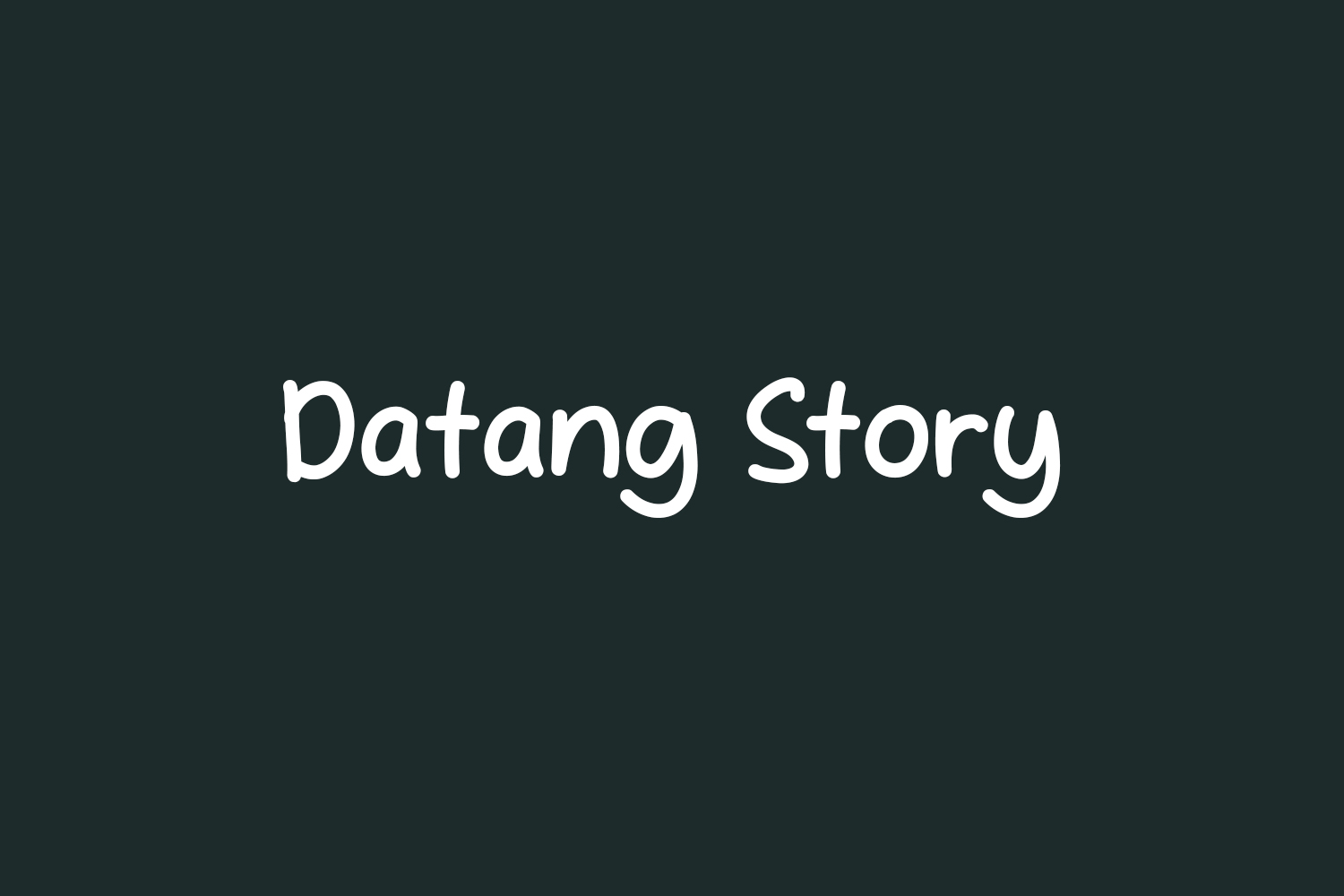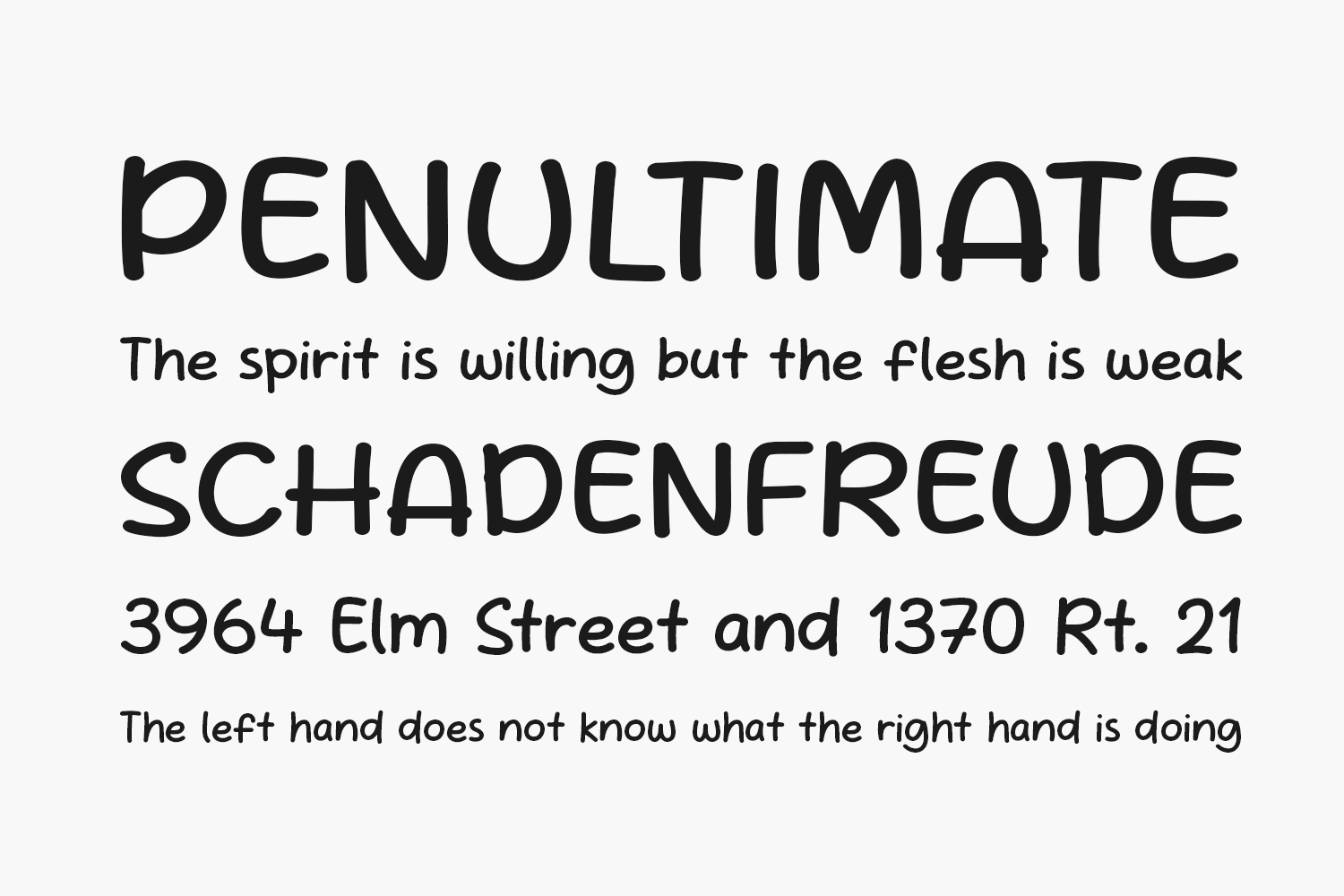
Datang Story – Free Hand‑Drawn Script Font with Playful Elegance
Datang Story is a charming, contemporary handwritten font designed by Khurasan. Its smooth strokes and casual yet refined character make it perfect for a wide range of creative applications—posters, book covers, banners, logos, magazines, and more. Free for both personal and commercial use, this TTF/OTF font brings a friendly, professional touch to typography. Whether you’re crafting warm branding or stylish editorial layouts, Datang Story delivers visual appeal with personality.
Why Choose Datang Story?
- Friendly Handwriting: Natural, legible strokes convey warmth and creativity.
- Versatile Applications: Great for editorial work, product design, packaging, and signage.
Where to Use Datang Story?
- Posters & Banners: Friendly headlines that draw attention.
- Book Covers & Packaging: Ideal for storytelling visuals or artisan goods.
- Logos & Branding: Great fit for boutique, lifestyle, or creative brands.
- Magazines & Editorial: Works well in pull‑quotes, captions, layouts.
- Social Media Content: Warm overlays for Instagram, Pinterest, YouTube thumbnails.
Design Tips with Datang Story
Use it at medium to large sizes (18 pt+) for maximum readability. Pair with a clean sans‑serif like Practicum or Neoteric for balance. Soft pastel or natural tones enhance its friendly vibe. Consider textured paper or background illustrations for storytelling contexts.
- Glyphs: Uppercase (A–Z), lowercase (a–z), numerals, punctuation, basic Latin.